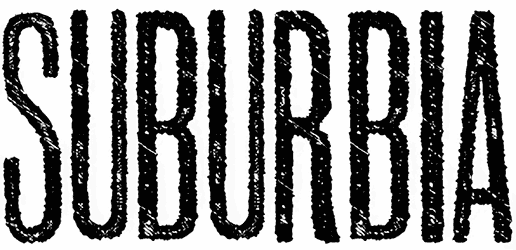
Suburbia Font
To make your text look as filthy and dusty as possible, use the font Suburbia. Because of its distinctive design, it is possible to use this tall font to easily make headlines, invitations, and other promotional materials, despite the fact that it does not contain any numbers.